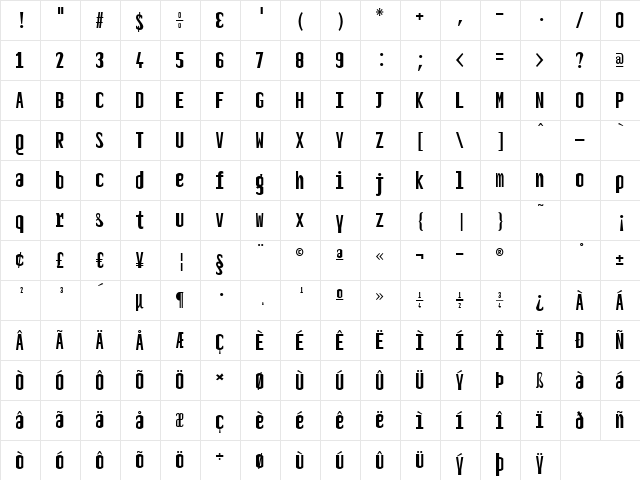
TElerysm Monospace Font Preview
TElerysm Monospace
Design Context for TElerysm Typeface
TElerysm brings the precise, column-aligned rhythm of monospaced typography to designs that value technical clarity and systematic order.
Pro Tip: Use TElerysm with slightly increased line-height for extended reading — fixed-width spacing can feel dense in longer passages without extra breathing room.